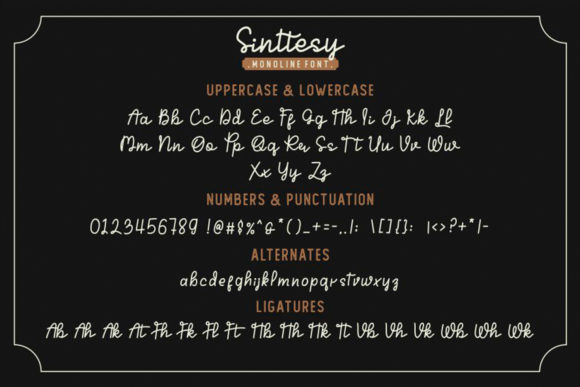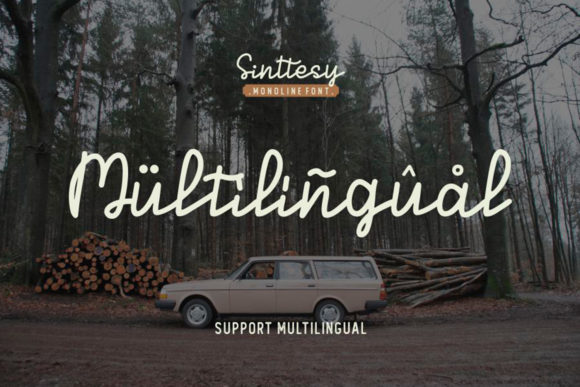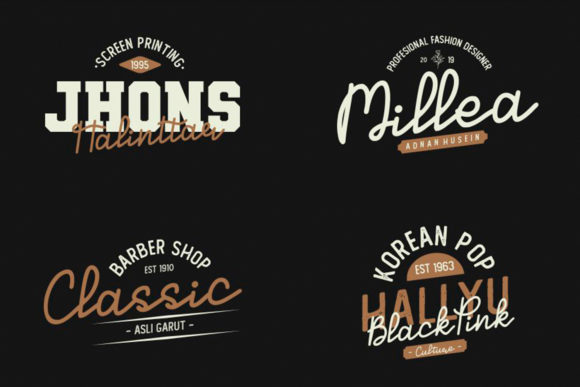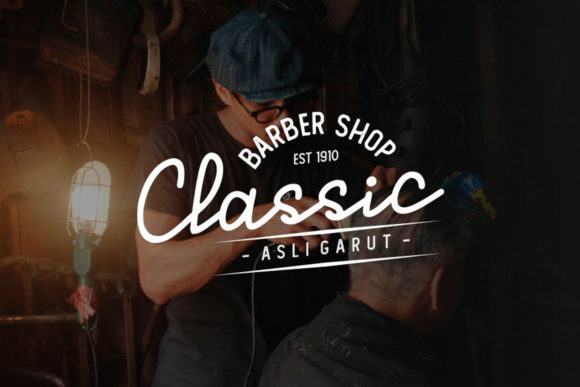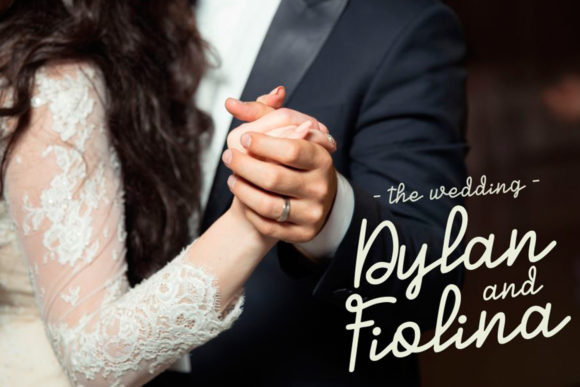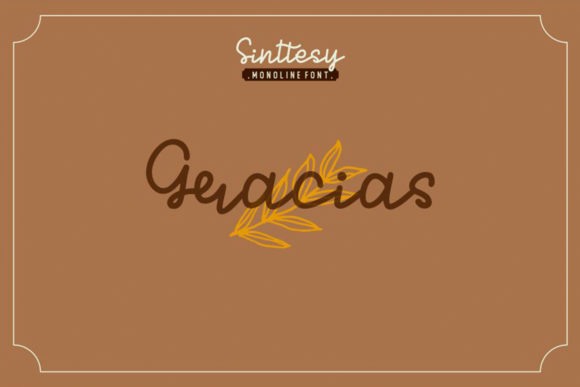
Introduction to Sinttesy Font
Sinttesy is a cute and casual handwritten font created with a touch of elegance.
It will elevate a wide range of design projects to the highest level, be it branding, headings, wedding designs, invitations, signatures, logos, labels, and much more .
Key Features of Sinttesy Font